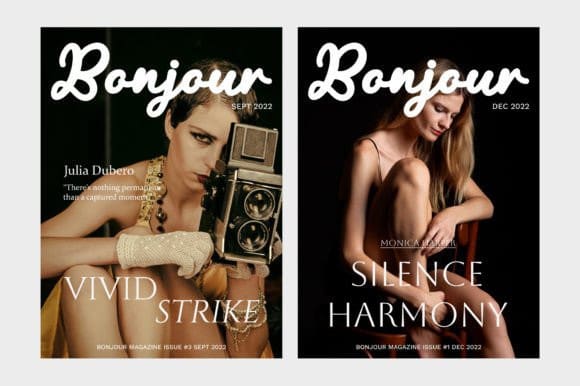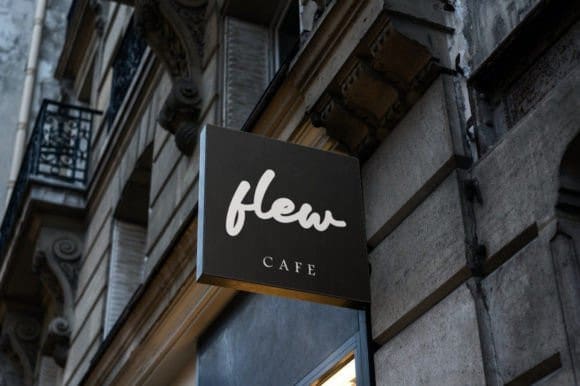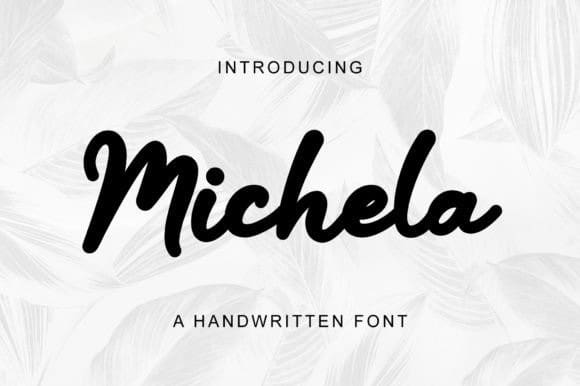
Michela Script Typeface
Michela Script Typeface, is a lovely and timeless handwritten font. It is the best choice for creating eye-catching logos, branding, and quotes.